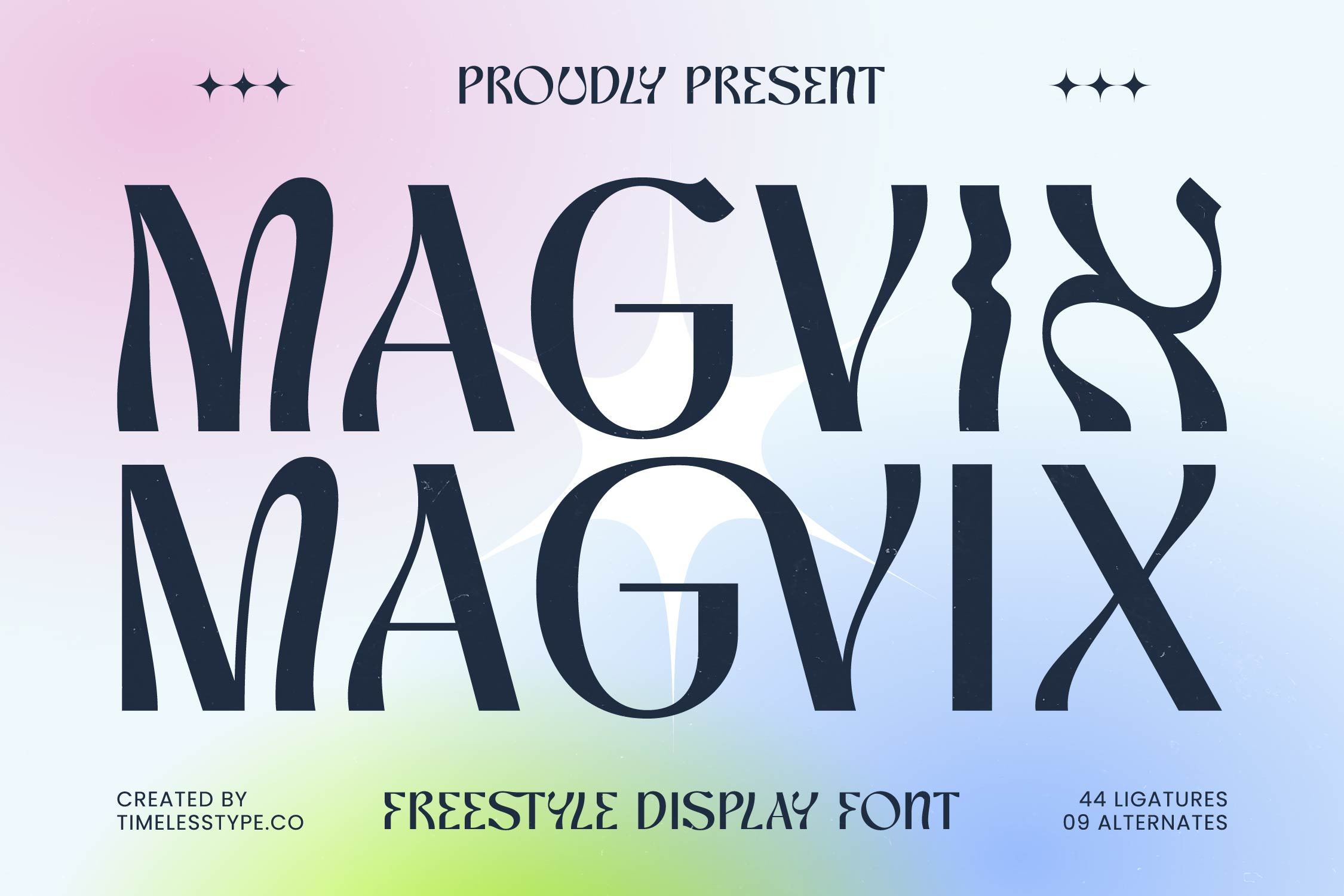
Magvix Modern Display Serif Font
Elevate your creative vision with the ethereal charm of Magvix, a typeface designed to dance across the page with unparalleled grace. This font captures the essence of fluid elegance, making every word a piece of art that demands attention through its unique rhythm and flow.
Inspired by the interplay between liquid motion and structured geometry, the inspiration for this font was born from a desire to blend psychedelic rhythms with high-end editorial aesthetics. It draws from the dreamlike quality of aurora gradients and the sharp precision of classic typography to create something truly unique and mesmerizing.
Boasting a striking modern serif display look, this typeface offers an exquisite luxury typography experience for high-stakes projects. Its high-contrast serif strokes provide an unmistakable editorial font feel that ensures a lasting branding impact for sophisticated brands looking to stand out.
Tapping into the current modern serif trend, this typeface is perfect for designers looking for editorial display fonts that feel both nostalgic and futuristic at the same time. It champions the rise of character-driven typography, where every glyph tells a story of elegance and avant-garde style.
Whether you are working on a boutique logo design or a full-scale corporate branding identity, the typeface adapts beautifully to any high-end environment. It is the ideal choice for editorial layouts, luxury packaging, romantic wedding stationery, and bold fashion lookbooks seeking a signature look.
Unlock creative possibilities with 44 unique ligatures and 09 stylish alternates that allow for custom typographic flourishes including beautiful swashes. The font also includes full multilingual support and a wide range of international characters, ensuring your message reaches a global audience with ease.
- Ligature 44 Alternate 09